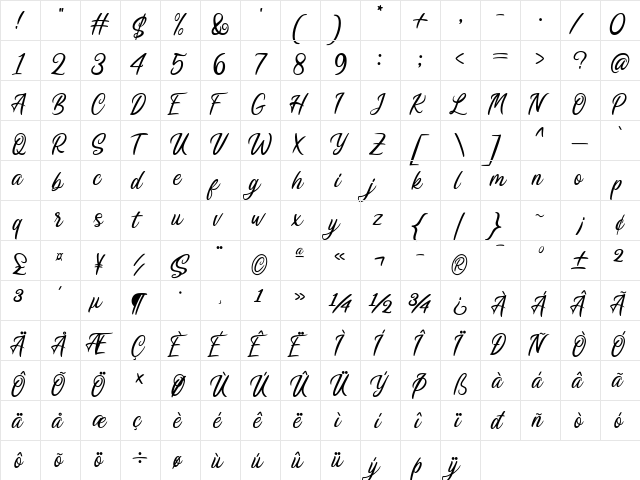
Misellia And Friend Script Regular
| Foundry | 7NTypes |
| Designer | Dreamink; Dani; Situjuh Nazara |
Design Context for Misellia And Friend Script Typeface
Misellia And Friend Script flows with the natural rhythm of handwritten lettering, making it ideal for designs that call for warmth and personal expression.